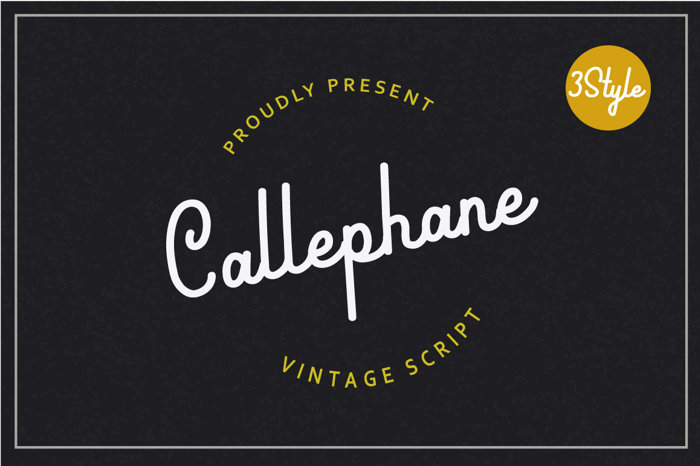
Callephane Font
Rough Style
Our newest font, introduce Callephane. Retro style font inspired by a unique design in the 60s.
This font is perfect to any retro project, logo, poster, clothing and many more
Callephane has 3 styles, Light, Regular and Rought.